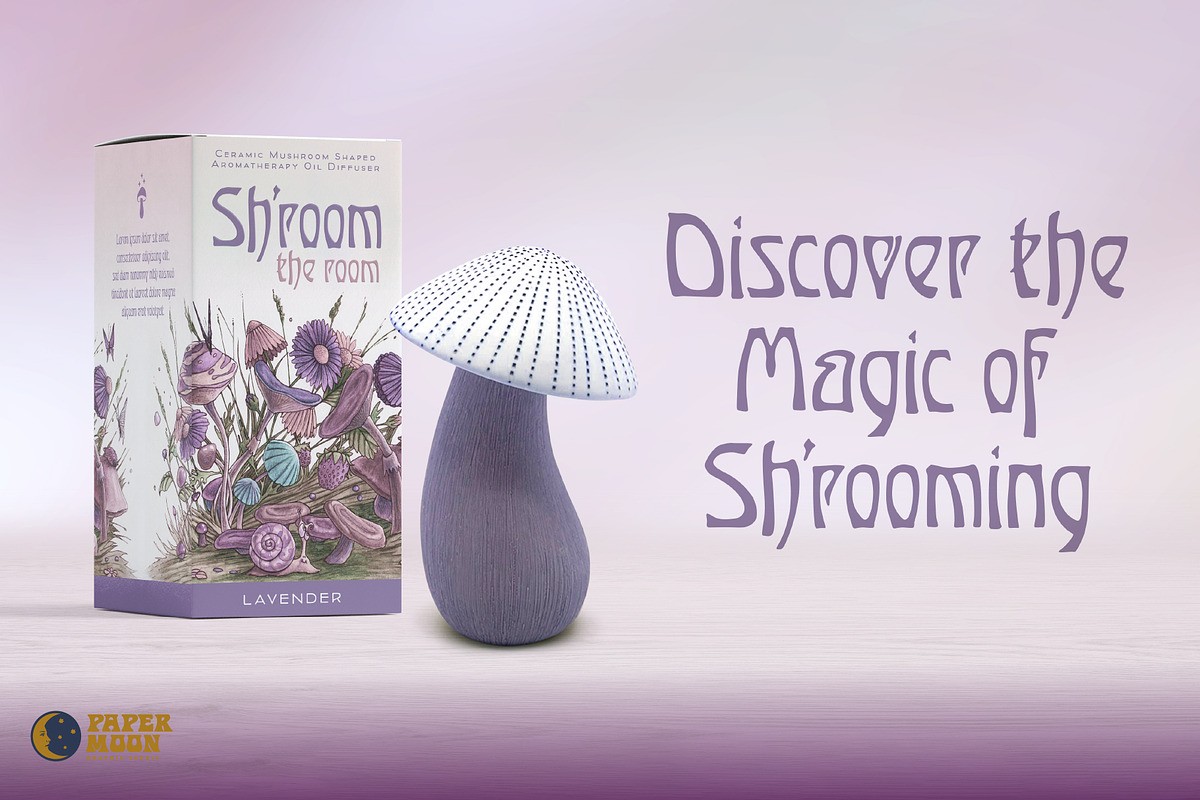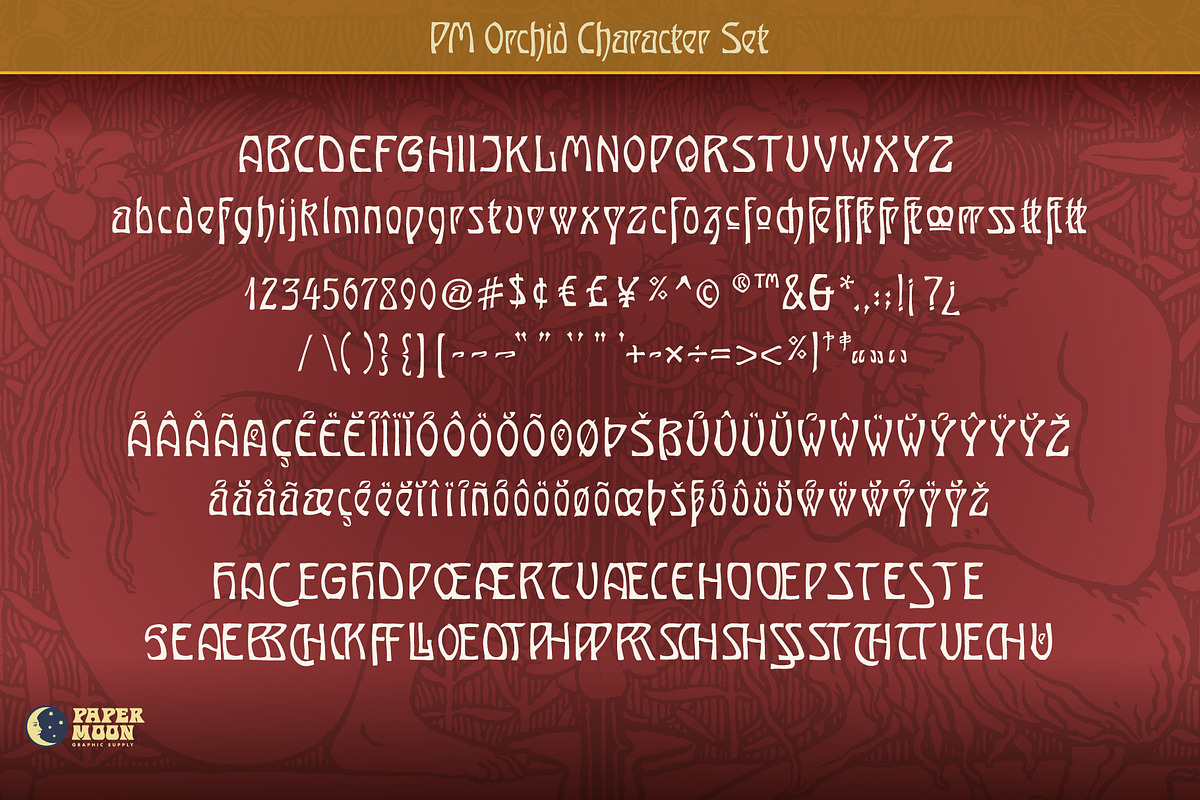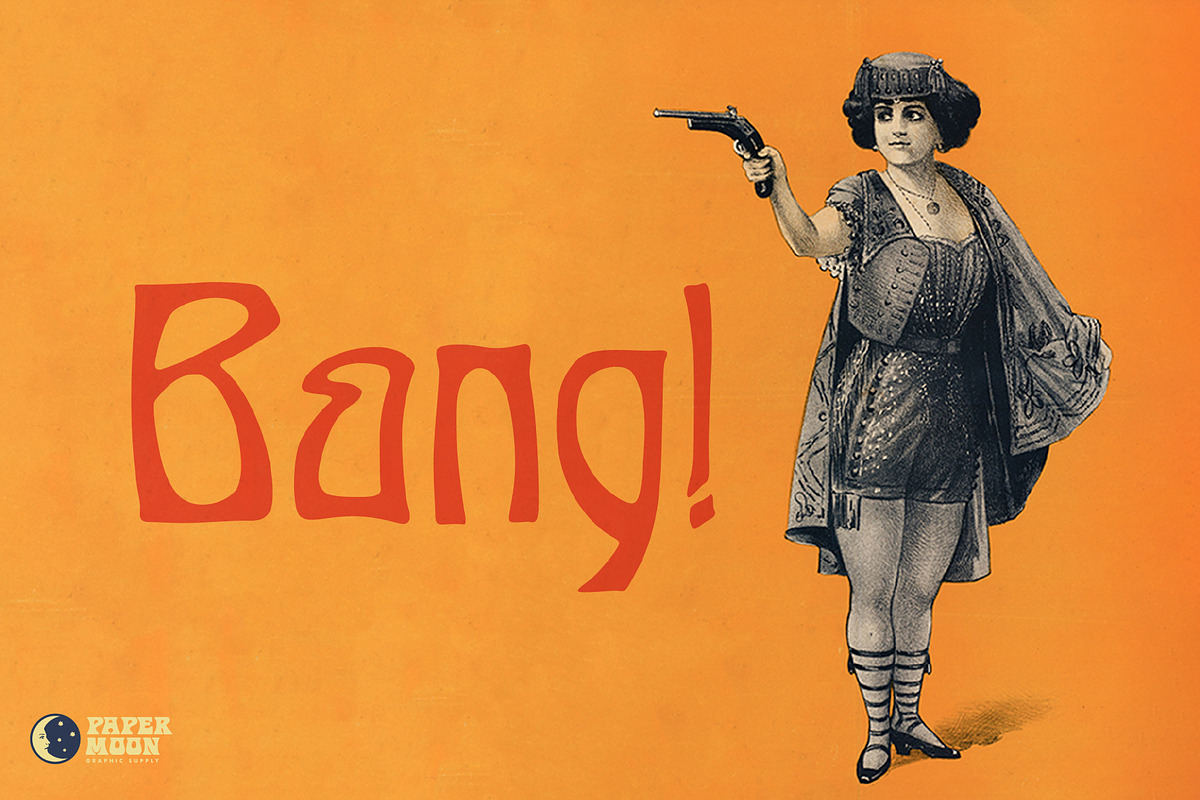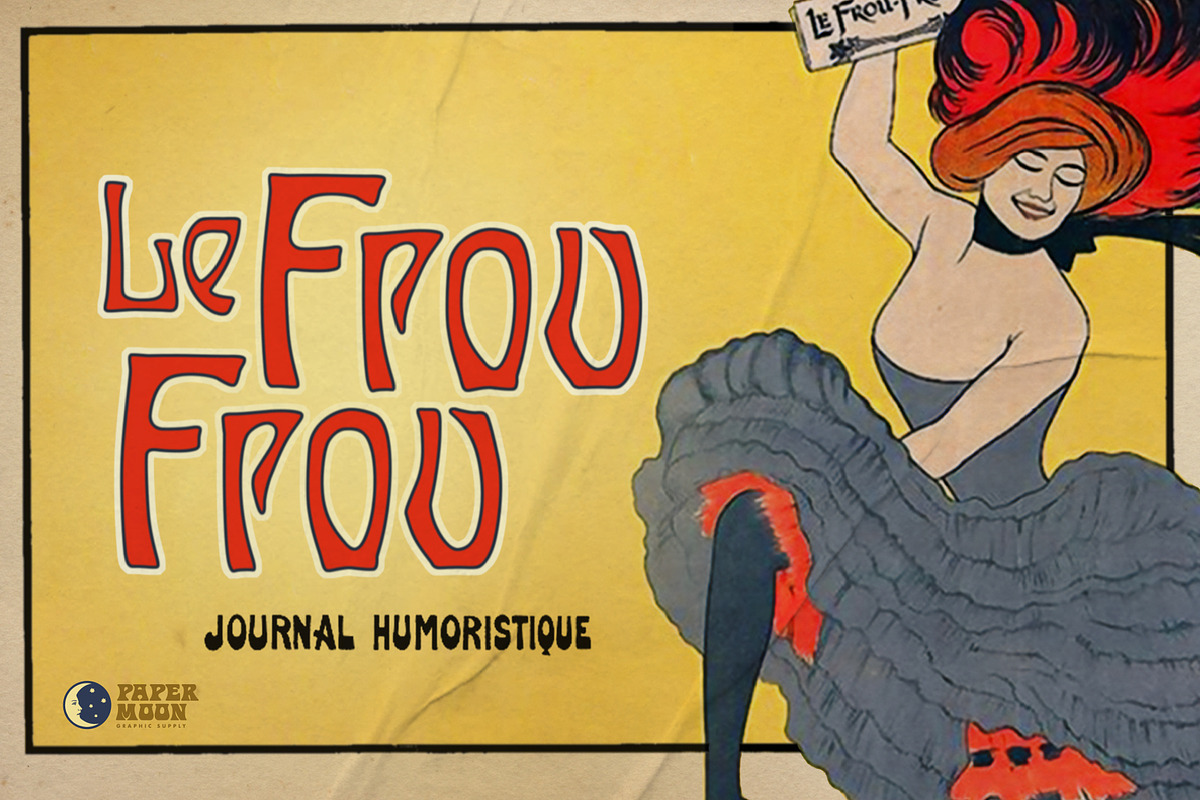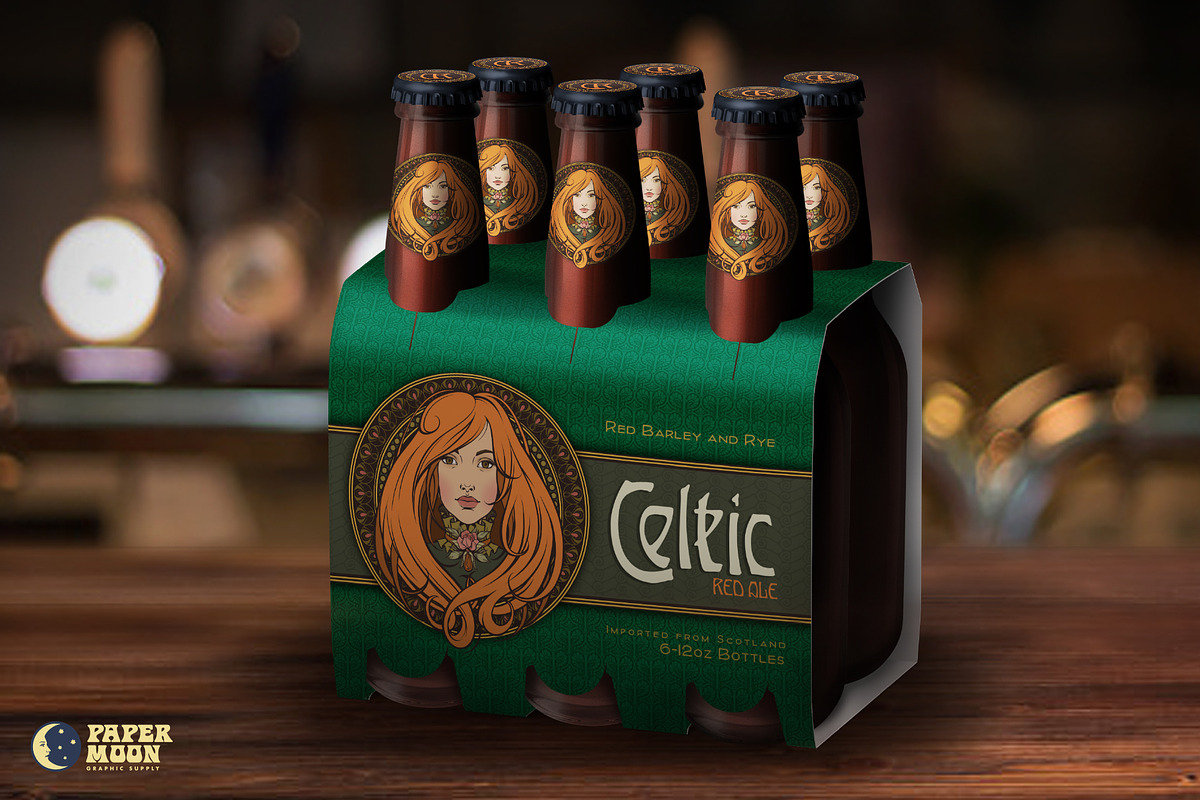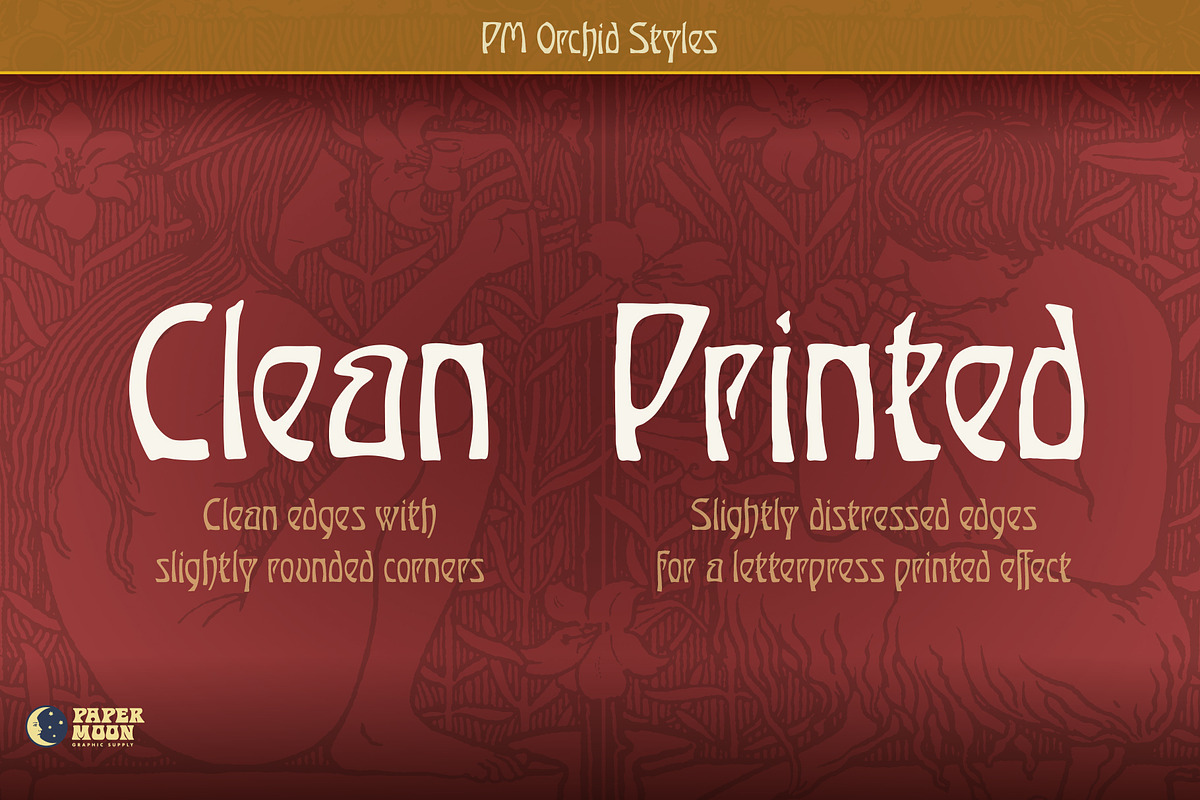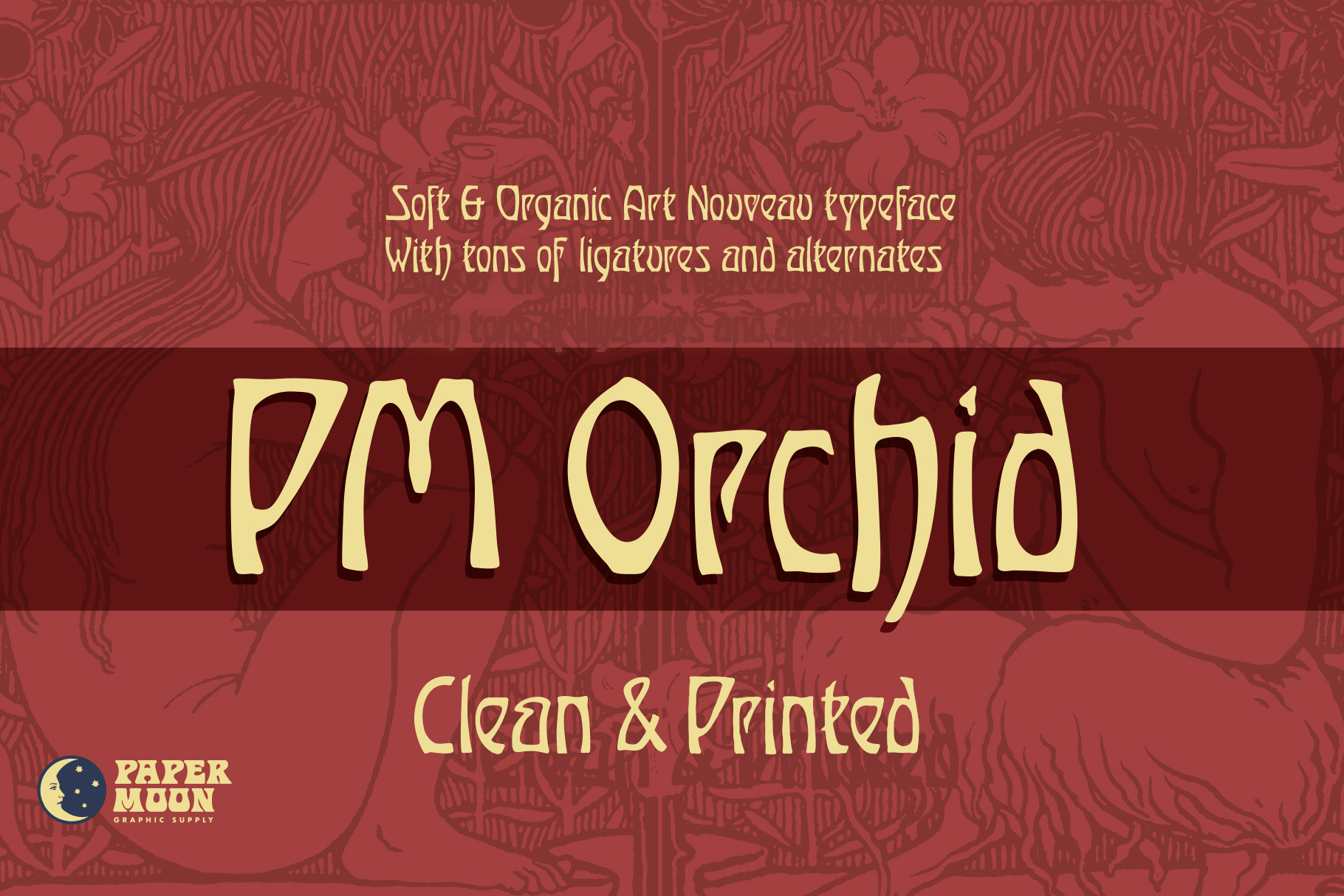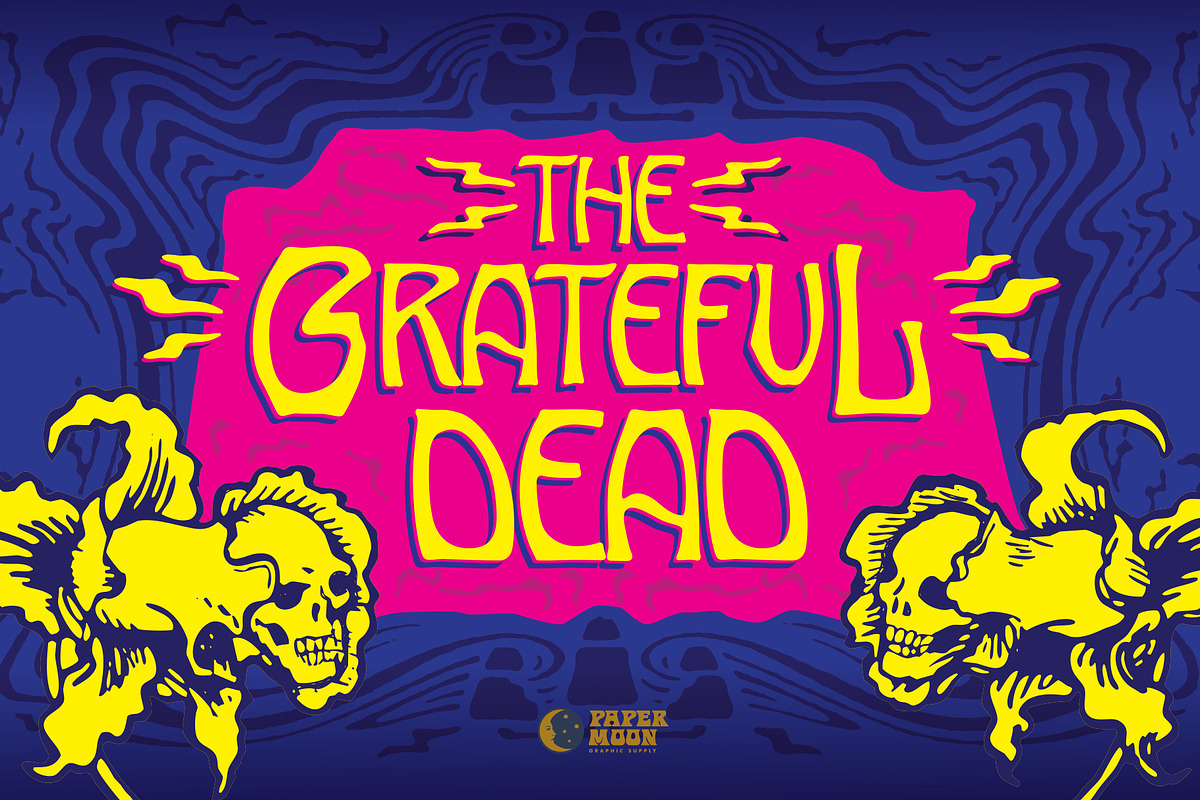
Orchid - Vintage Art Nouveau Font
A new Art Nouveau font perfect for both product branding and psychedelic designs.
PM Orchid is a soft, sinuous Art Nouveau typeface with tons of ligatures and alternates. It comes in two handy styles - clean and printed.
PM Orchid Clean has sharp, clean edges with slightly rounded corners. It is designed to be used with projects that require a clean edge like wedding invitations and modern layouts.
PM Orchid Printed has the feeling of vintage letterpress printing. It's slightly rough distressed edges allow it to fit in with vintage style designs that have more tactile design elements.
PM Orchid was designed by award-winning illustrator and designer Scott Banks. Until now, this font was part of Scott’s personal collection of design resources. Now you can get this typeface for your personal arsenal.